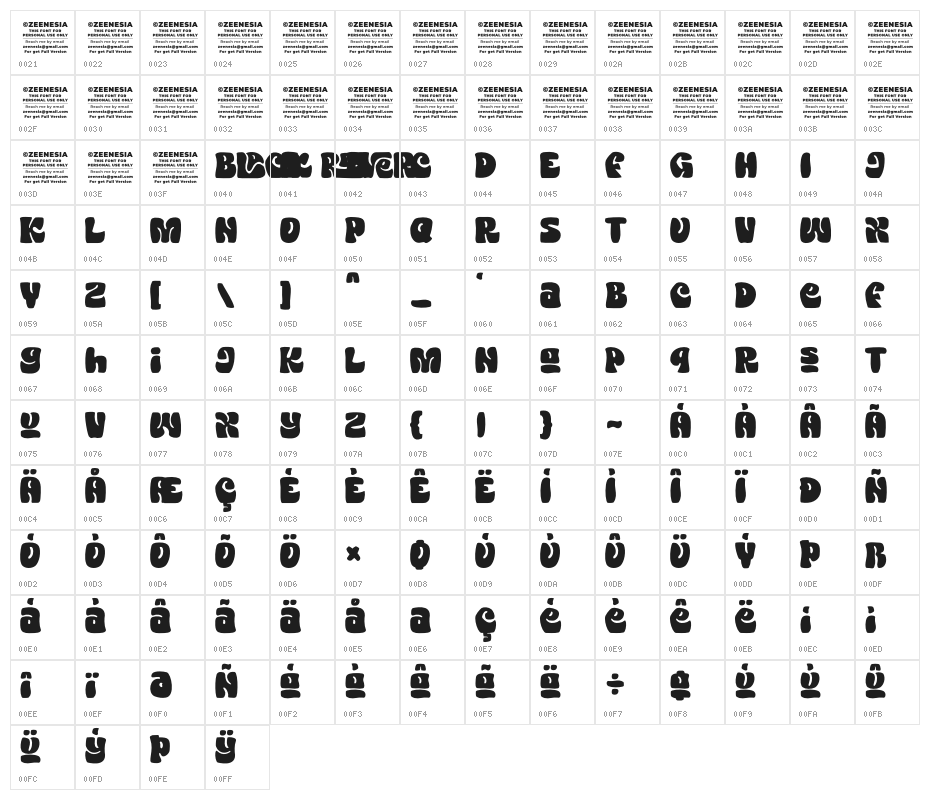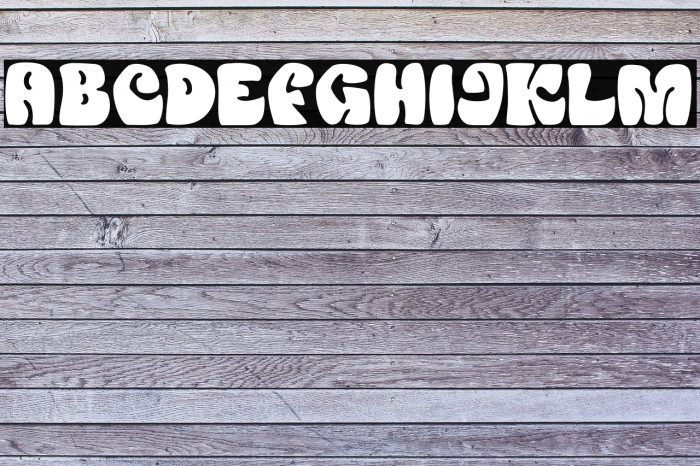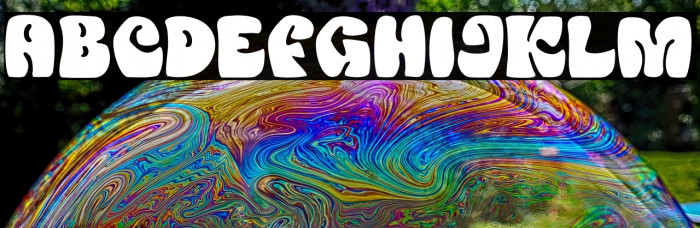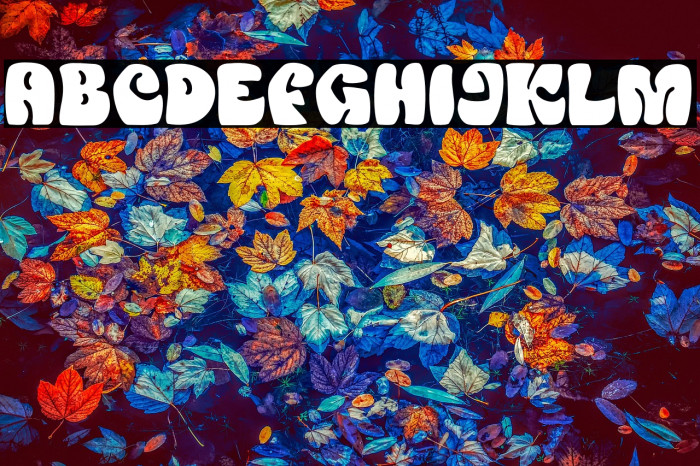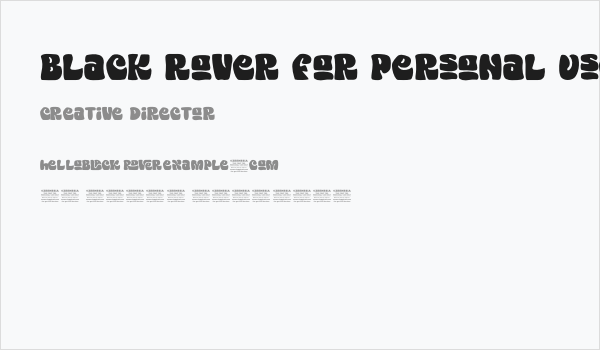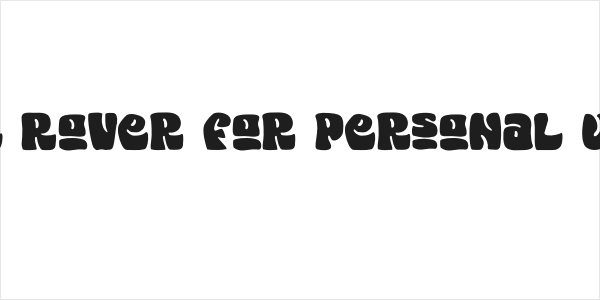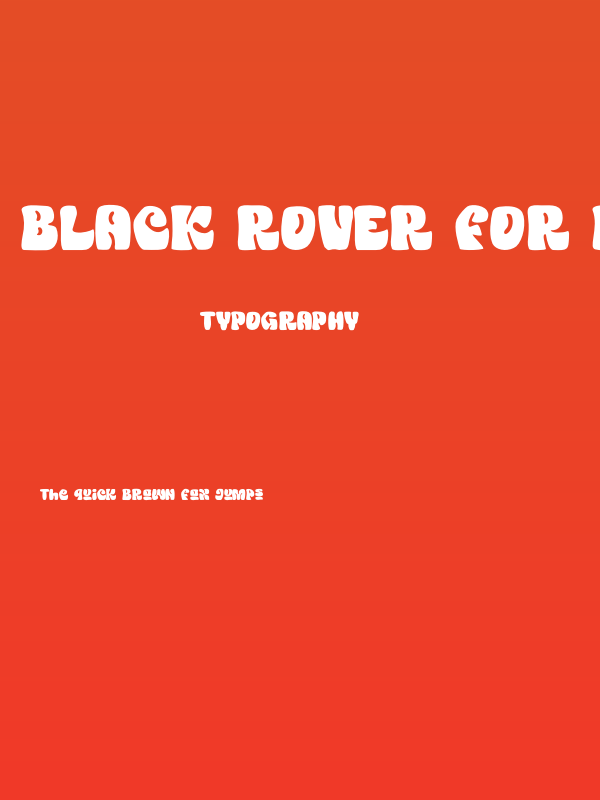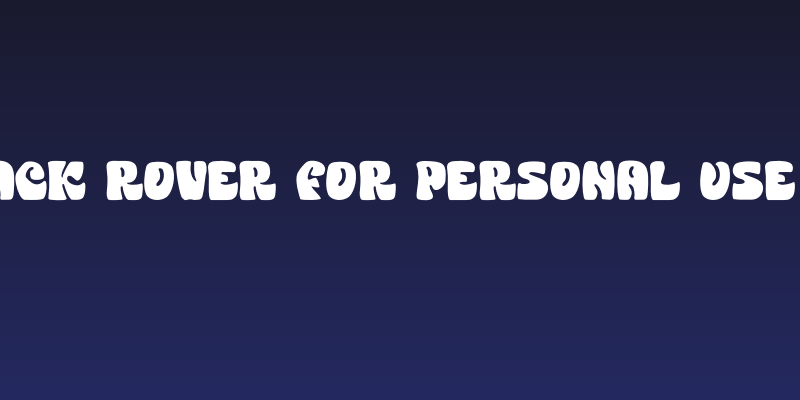
Black Rover For Personal Use On Font
Black Rover For Personal Use On Description
This font features a bold and playful design with thick, rounded strokes that create a sense of movement and energy. The characters are uniquely shaped, with a slightly irregular form that adds a whimsical touch. The uppercase and lowercase letters maintain a consistent style, with the lowercase being slightly more compact. The numbers and special characters follow the same bold and dynamic aesthetic, making them stand out. This font is ideal for projects that require a fun and eye-catching look.
Overall StylePlayful, Whimsical
Proposed ProjectsPerfect for children's books, playful branding, posters, and creative social media graphics.